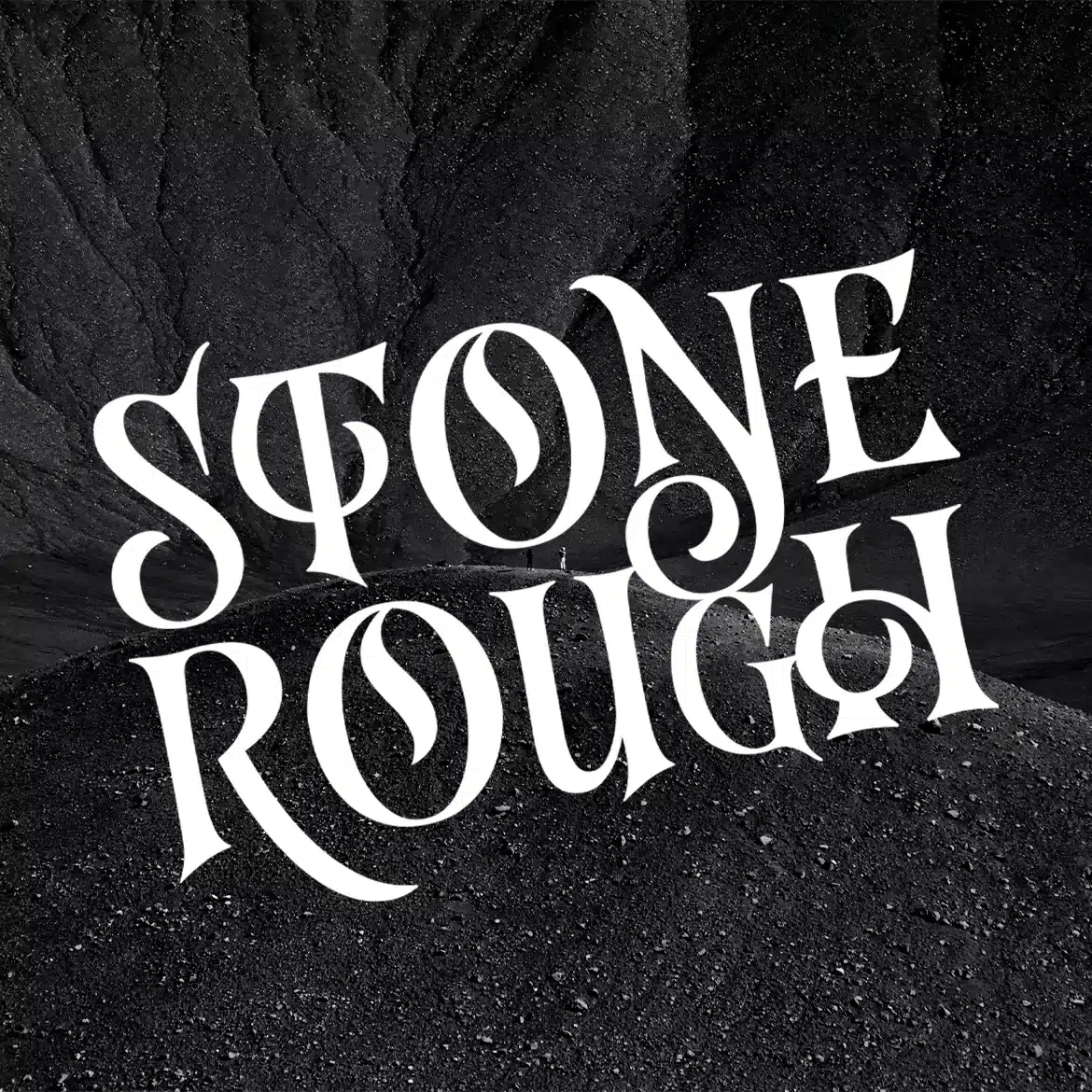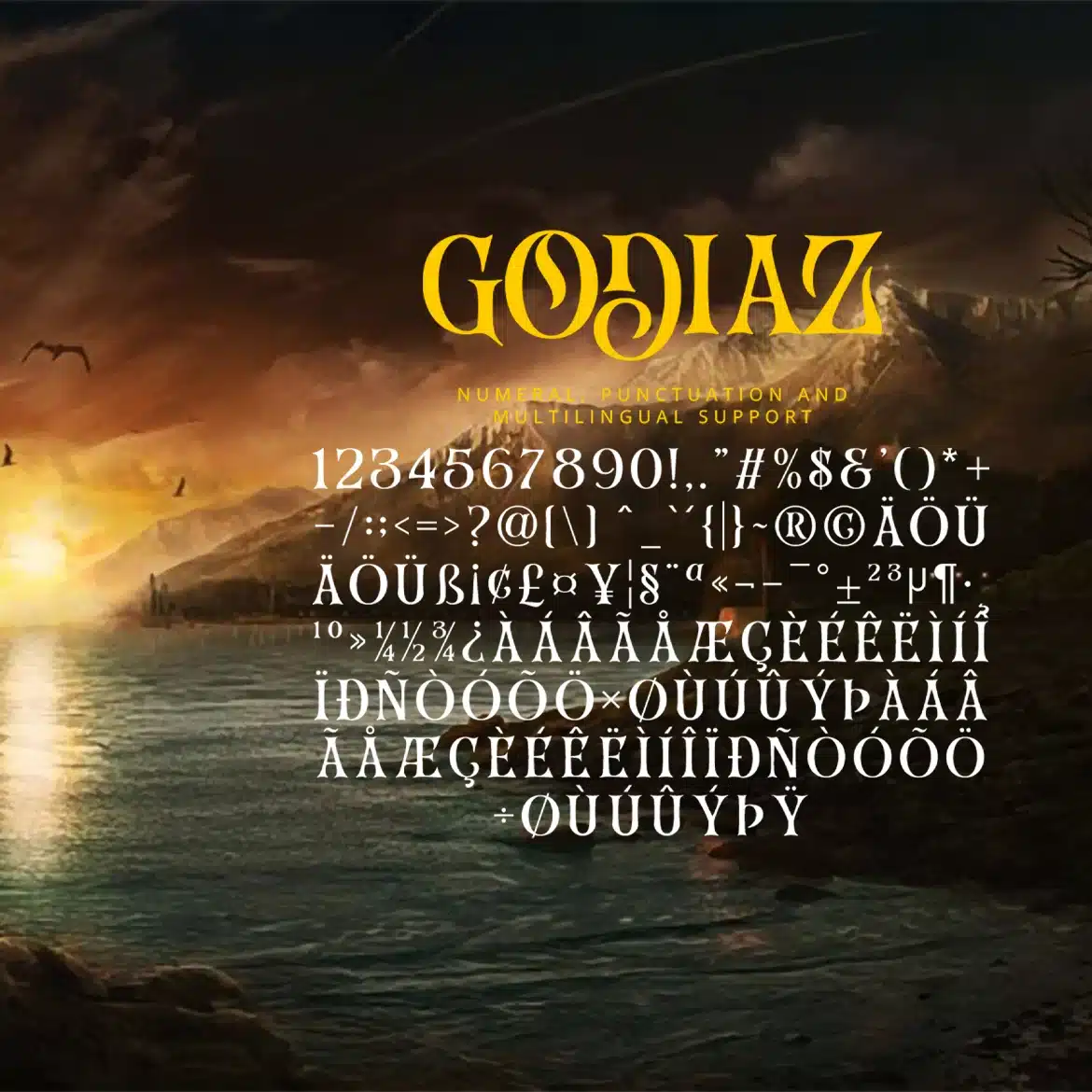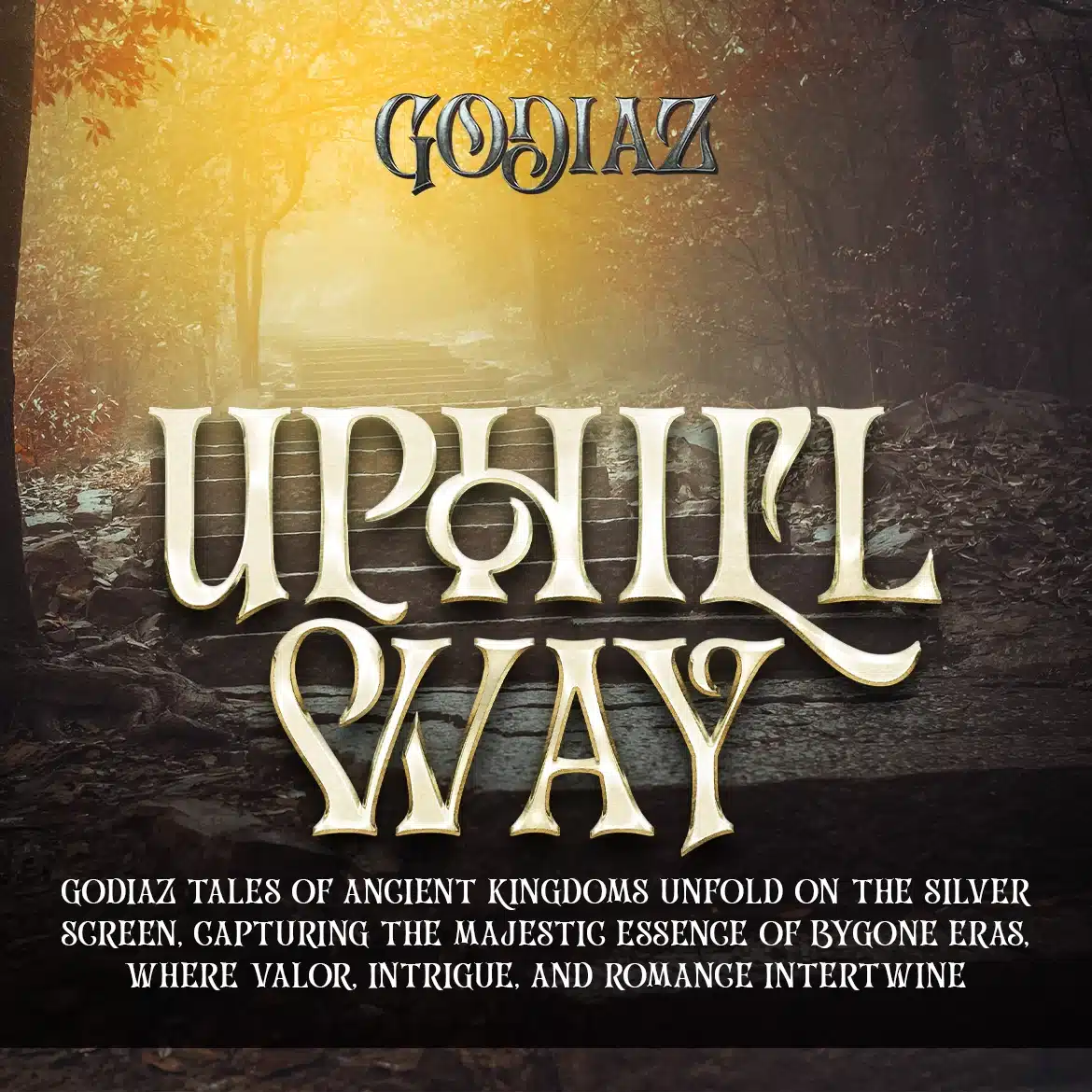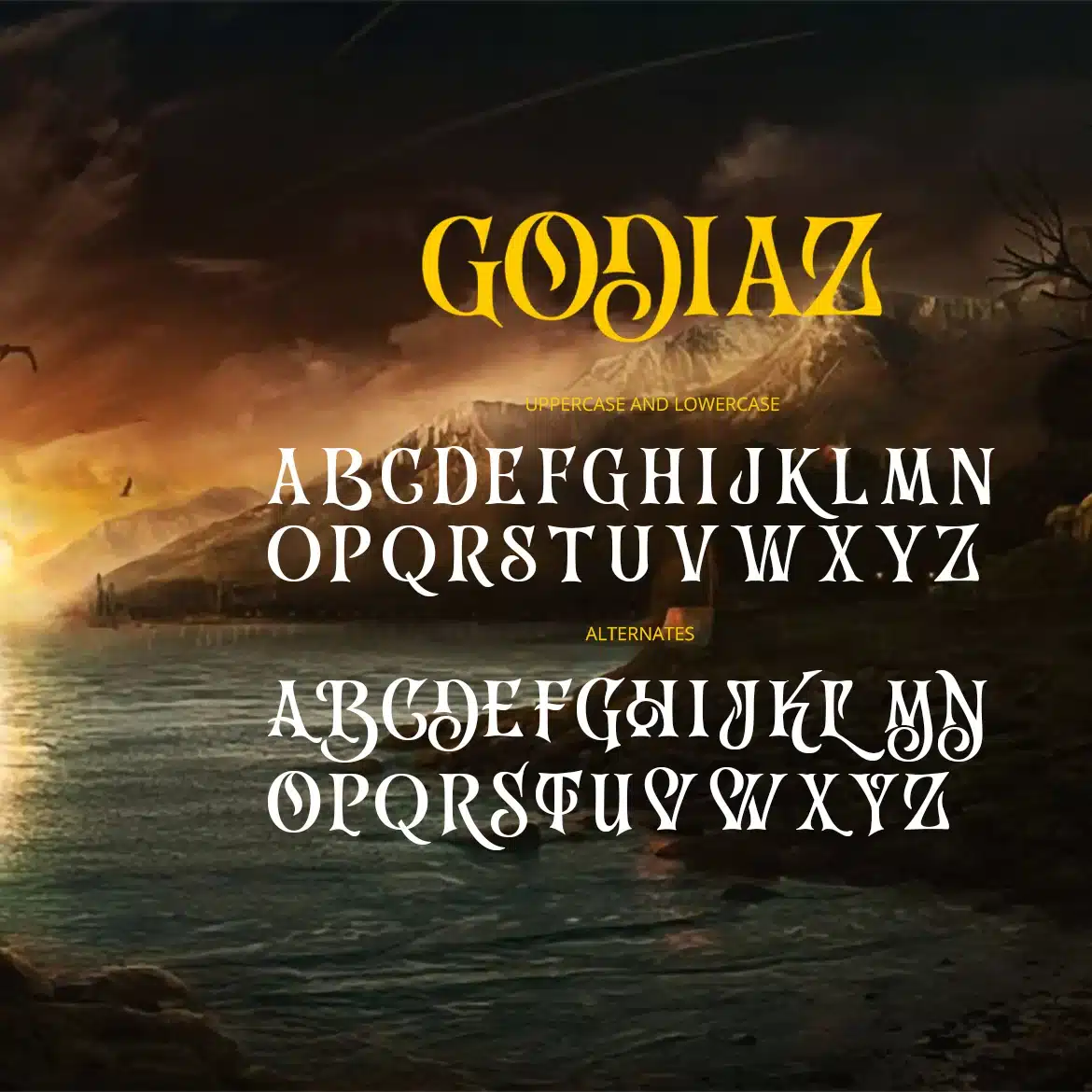
Godiaz – Classic Serif Font
Introducing "Godiaz," a classic serif font that brings timeless elegance and unmatched versatility to your design projects. Perfect for graphic designers, typographers, and creatives seeking a traditional yet refined aesthetic, Godiaz offers a sophisticated and reliable style that complements any design.
Ideal for editorial content, branding, books, invitations, logos, and upscale advertising, Godiaz’s clean and well-balanced characters exude a sense of tradition and authority. Each letter is meticulously designed to ensure exceptional readability and a distinguished appearance, making your designs both captivating and professional.
The "Godiaz" font includes a complete set of uppercase and lowercase letters, numbers, punctuation marks, and special characters. This comprehensive set ensures seamless integration into various design applications, from classic editorial layouts to elegant branding projects.
Embrace timeless elegance with Godiaz, the classic serif font that delivers sophistication and versatility in every character.